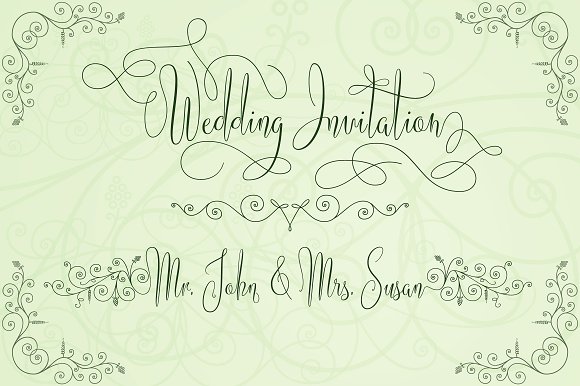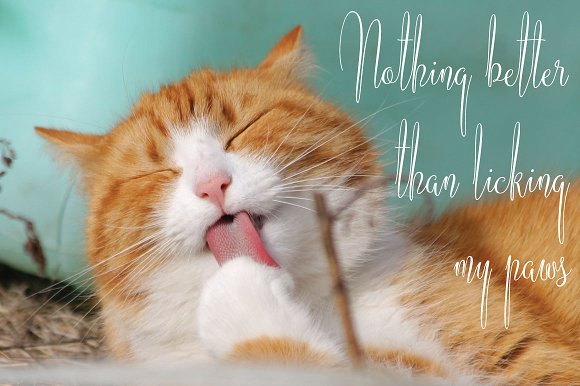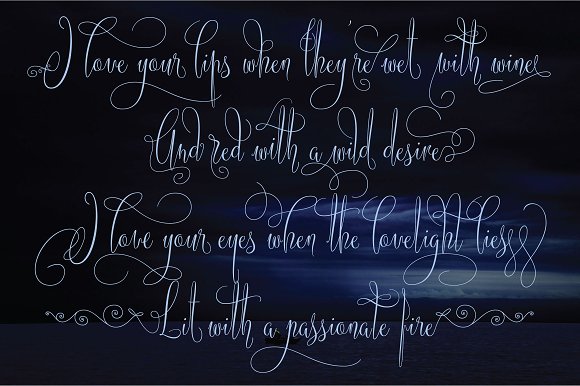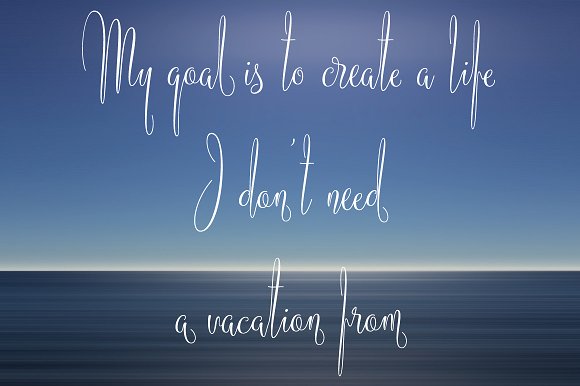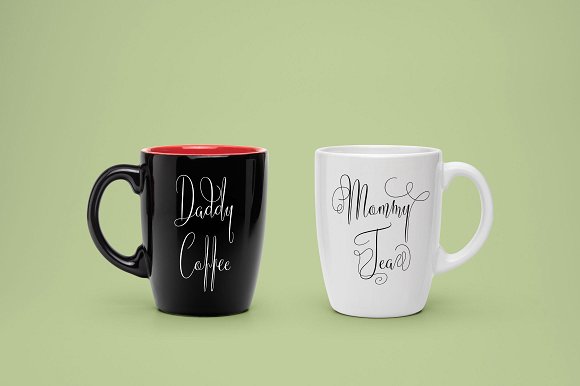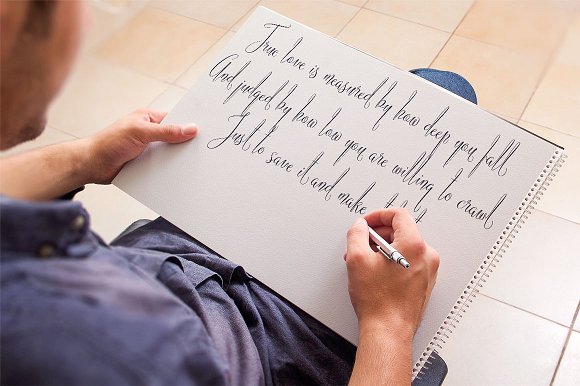
The Perfect Blend of Tradition and Modernity: American Script Font
Have you ever sat down with a blank page, a pen, and a blank mind, only to have a burst of creative energy take over? That’s exactly what happened to designers when they first laid eyes on the American Script Font. Created by the talented Darwinoo, this elegant font has been a game-changer in the world of typography.
The American Script Font is designed to evoke the classic, handwritten feel of American script writing from the past, but with a modern twist. It’s perfect for designers who want to add a touch of sophistication and elegance to their designs without sacrificing readability. Whether you’re working on a wedding invitation, a logo, or a business card, this font is sure to impress.
Key Features of American Script Font
- Font Style: A decorative, cursive script font with a classic, elegant feel.
- Unique Characteristics: Distinctive, flowing connections between letters, with subtle flair and flair at the ends of strokes.
Designer Review: American Script Font
Overall, I’d say the American Script Font is a solid choice for any project that requires a classic, elegant feel. ✨ The font’s rounded edges and flowing connections between letters give it a smooth, organic look that’s perfect for invitations, wedding designs, or even formal business communications.
- ✨ The font is highly legible, even at smaller sizes, making it a great choice for body text or headings.
- ✨ The font’s classic feel makes it a great choice for projects that require a sense of tradition or nostalgia.
- ✨ The font is highly customizable, allowing designers to adjust the size, color, and spacing to suit their project’s needs.
However, there are a few limitations to consider: ⚠️ The font can feel a bit overused or clichéd if not used carefully, so it’s essential to pair it with other creative elements to avoid a generic look.
- ⚠️ The font may not be the best choice for projects that require a modern or edgy feel, as it can come across as too traditional or conservative.
- ⚠️ The font can be a bit difficult to pair with other fonts, so it’s essential to choose a font that complements its classic feel.
Overall, the American Script Font is a reliable choice for designers who need a classic, elegant look. With a little creativity and careful consideration of its limitations, this font can be a valuable addition to any designer’s toolkit.
For a more authentic look, pair American Script Font with a plain background and minimal design elements.
For a polished look, pair American Script Font with a clean layout and minimal graphics.
Use American Script Font for:
- Personalized gifts and cards
- Special occasion announcements
Remember to experiment with different font styles and pairings to achieve the desired look.
Alternatives to American Script Font for Designers
Great Vibes is a beautiful script font that works well for titles, headings, and quotes. It has a more modern feel than American Script Font, making it perfect for contemporary designs. Great Vibes is ideal for designers who want to add a touch of elegance and sophistication to their projects.
Comparison: Great Vibes has a more fluid and dynamic feel compared to American Script Font, which can make it appear more modern and trendy. However, American Script Font has a more classic and timeless feel that may be preferred by designers who want a more traditional look.
Carolyna Pro is a high-end script font that is perfect for luxury brands and high-end designs. It has a sophisticated and elegant feel that works well for titles, headings, and body text. Carolyna Pro is ideal for designers who want to create a sense of luxury and exclusivity in their projects.
Are there any variations or alternatives to the American Script Font?
Yes, there are several variations and alternatives to the American Script font. Some popular alternatives include the Copperplate Script font, the Spencerian Script font, and the Brush Script font. These fonts offer similar calligraph